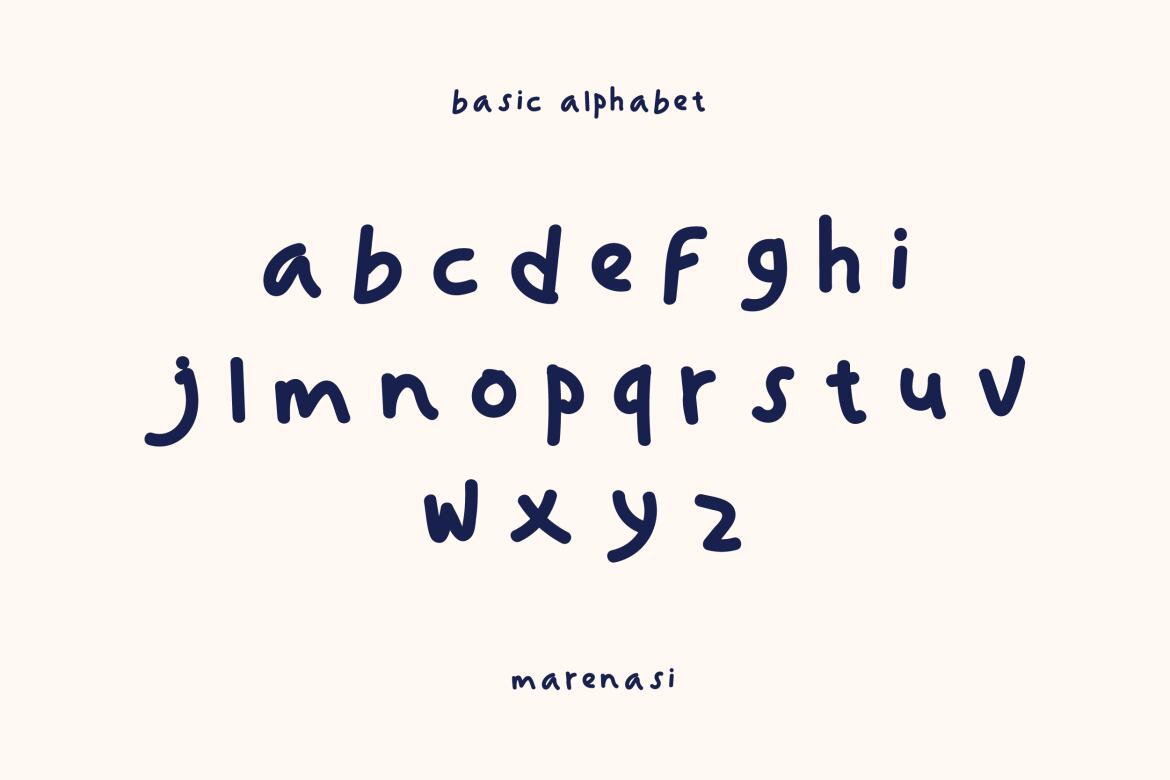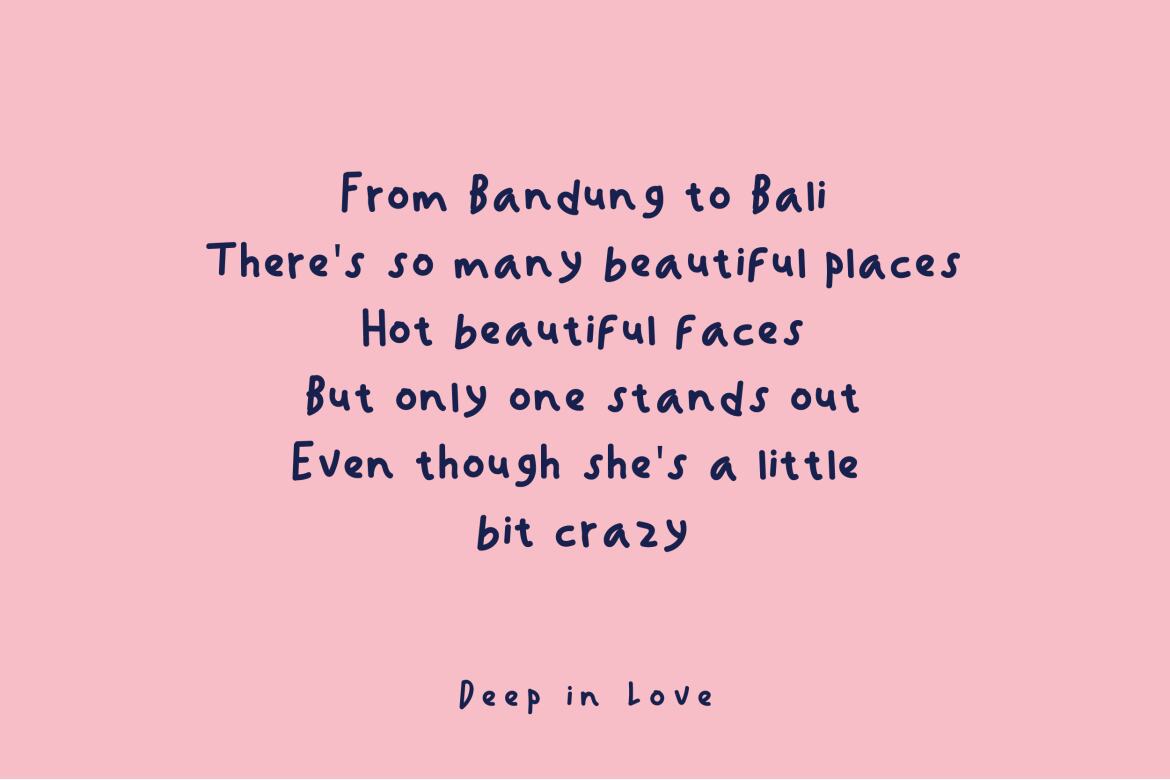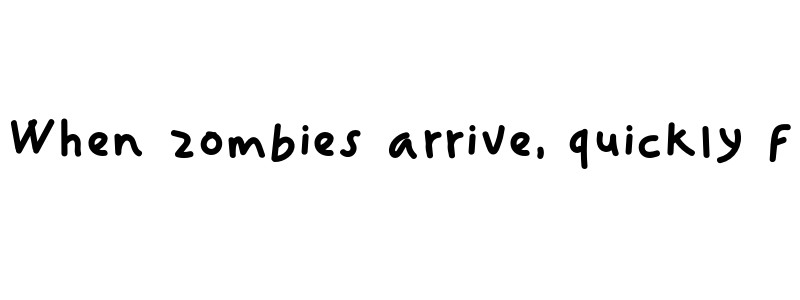
Marenasi Handwritten FREE Font
Versatile high-quality playful font for every need of your project. The playful style is perfect for children's books, menus, invitations, and more. It includes all the characters you need to create professional-looking documents in a range of languages.